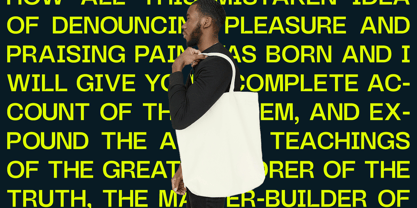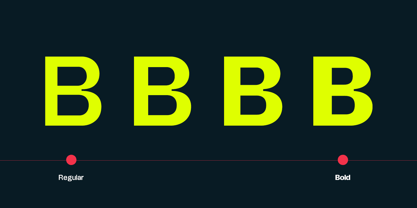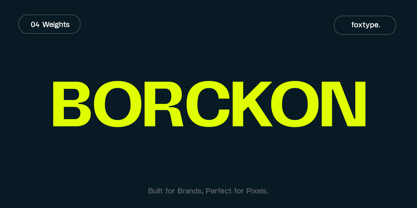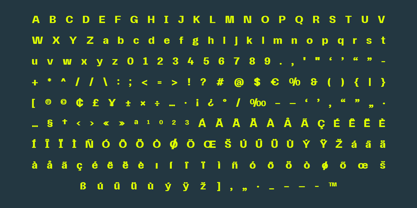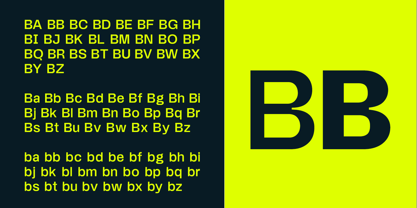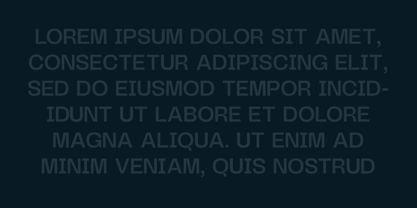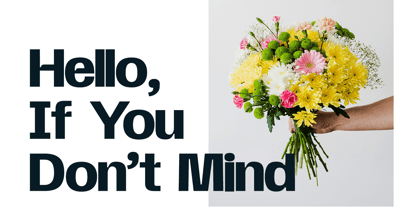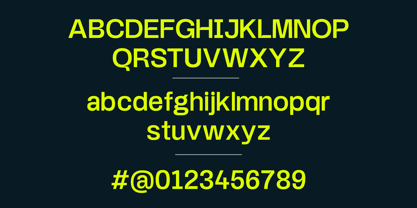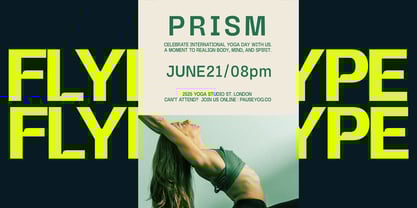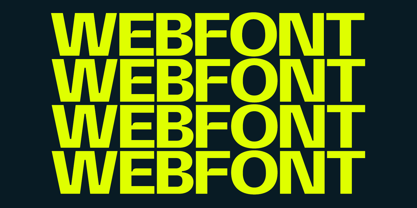
Borckon
La familia tipográfica Borckon fue diseñada por Evin Tony y publicada por FoxType. Borckon contiene 4 estilos y opciones de paquete familiar.
Borckon Display – Bold. Versatile. Made for Impact.
Borckon Display is a modern and powerful typeface designed for maximum visual impact. Perfect for web projects, branding, posters, flyers, headlines, magazine covers, and bold graphic design, Borckon brings clarity and character to every layout. With its clean lines and strong presence, this font family is ideal for creative professionals, designers, and marketers seeking a high-impact visual solution.
This font package includes 4 essential weights — Regular, Medium, SemiBold, and Bold — offering you the flexibility to adapt to any project need. Whether you're building a standout website UI, crafting a compelling brand identity, or designing eye-catching print materials, Borckon Display delivers unmatched readability and style.
* 4 Weights: Regular, Medium, SemiBold, Bold
Make your message loud and clear with Borckon Display – a typeface that’s bold enough to lead, and refined enough to stay timeless.